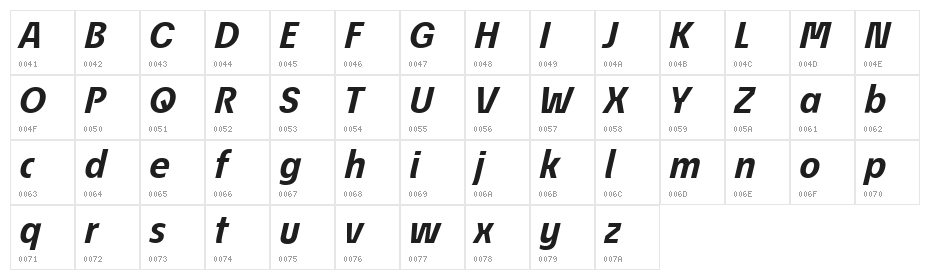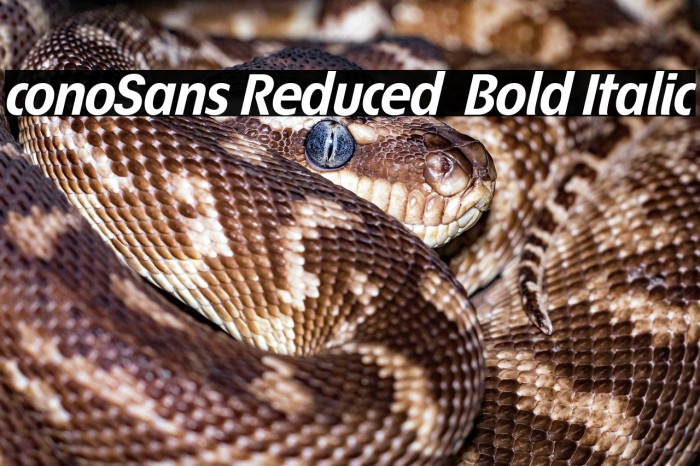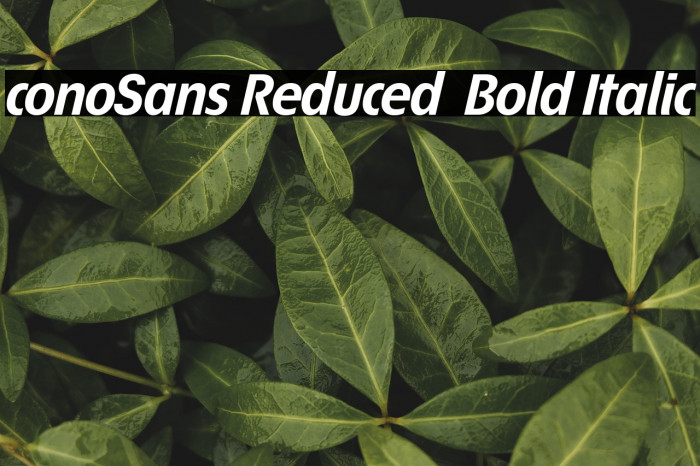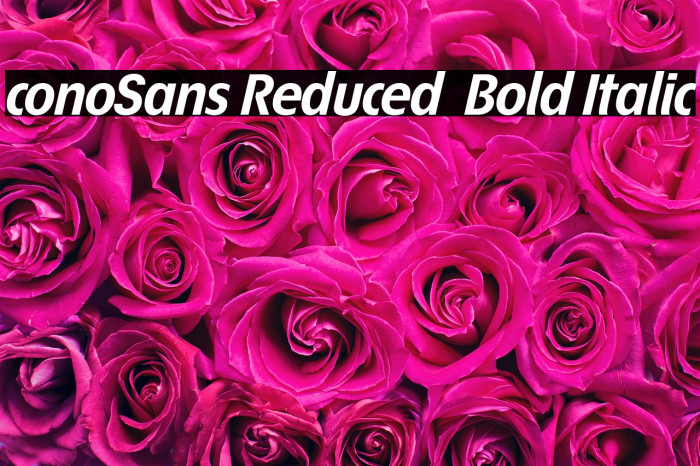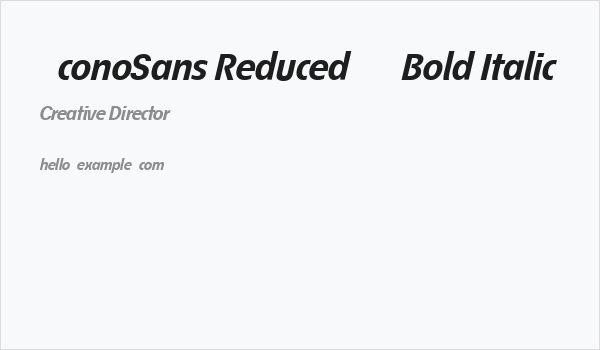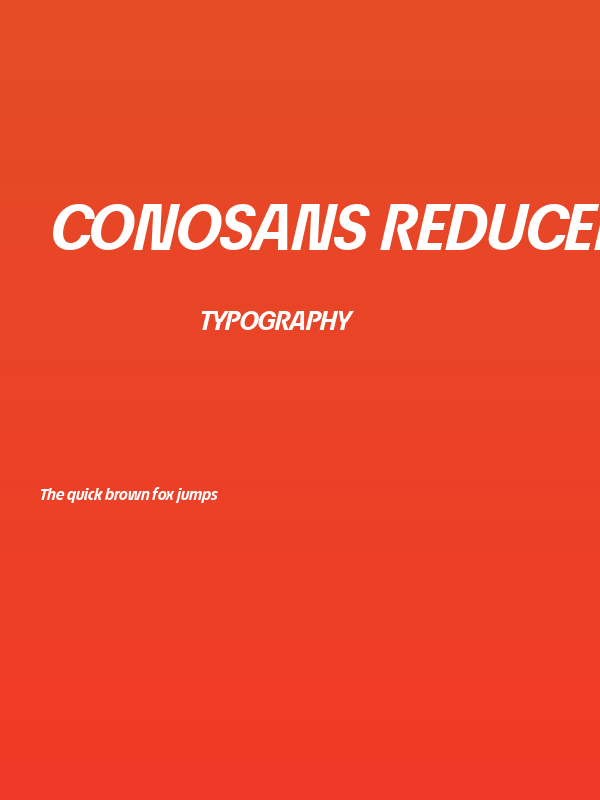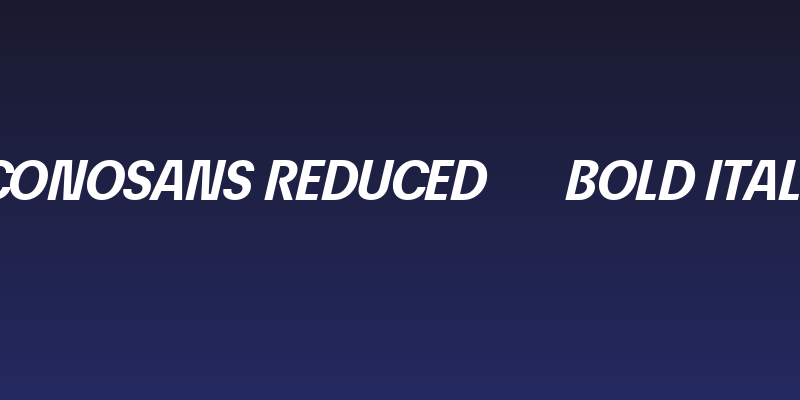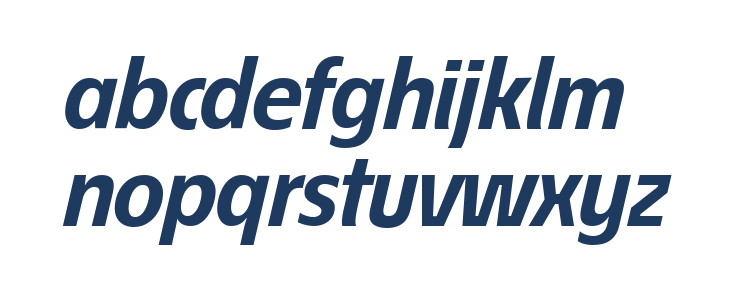
ÉconoSans Reduced 76 Bold Italic Font
ÉconoSans Reduced 76 Bold Italic Description
This font features a bold and italicized style, characterized by its strong and assertive appearance. The letters are slightly slanted, giving a dynamic and forward-moving impression. The strokes are thick and consistent, providing a sense of stability and confidence. The font maintains a clean and modern aesthetic, making it suitable for various contemporary design projects. Its sans-serif nature ensures readability and clarity, even at smaller sizes. The overall design is sleek and professional, with a touch of elegance due to its italicized form.
Use CaseHeadlines, Logos, Branding
Proposed ProjectsIdeal for branding, advertising, headlines, and digital media projects where a strong and modern impression is desired.